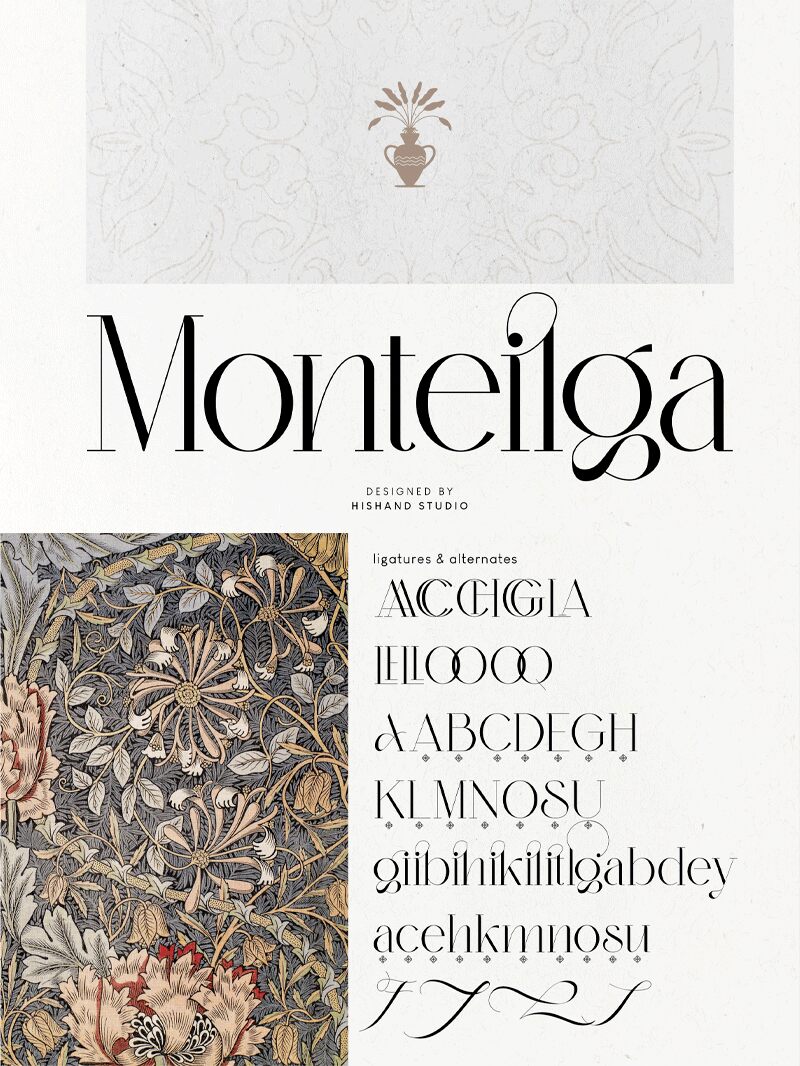
Monteilga font by Hishand Studio is an elegant serif typeface that carries ornamental edge details in its characters. The sophisticated build of every letter decorations makes it a classic, charming, and special choice for your typeface needs. This free serif font blends open curves and appears professional in the look - for well-crafted typographic projects.
Use Monteilga for logos, branding design, packaging projects, magazine/ editorial work cover designs, or even websites and apps. Bring style to your business cards, type on apparel items like t-shirts or caps by applying this beautiful font idea. Labels can become extra special with this unique lettering experience that accompanies Monteilga - keep experimenting!
Monteilga